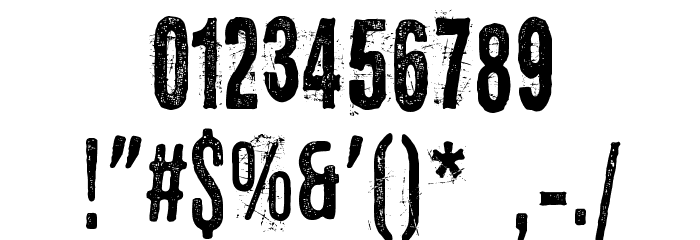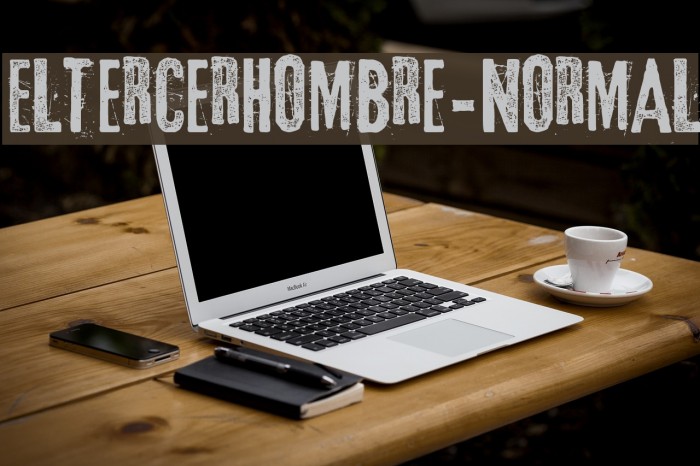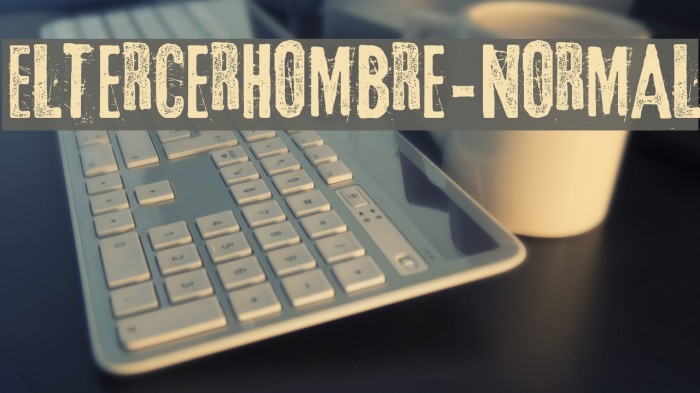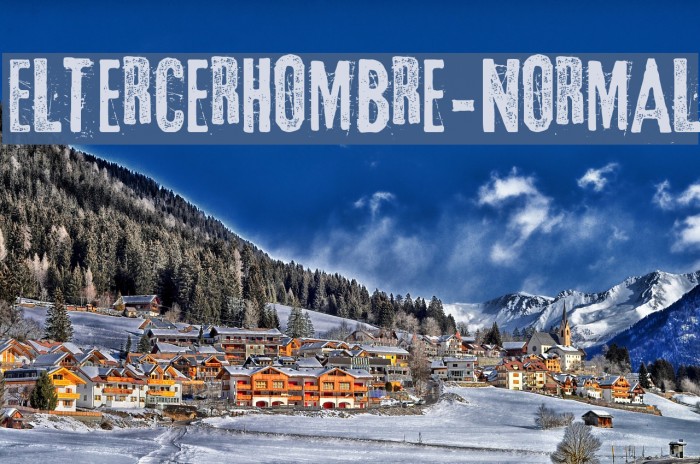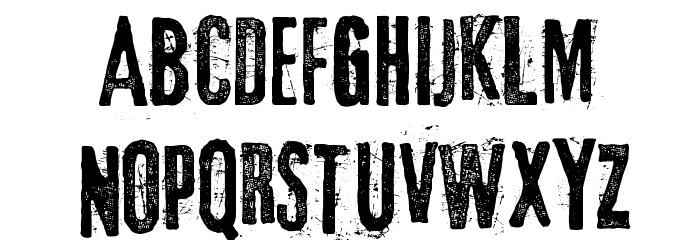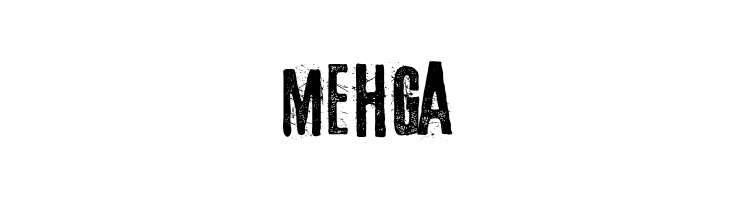
Eltercerhombre-Normal Font
This font features a bold and distressed style, giving it a rugged and vintage appearance. The characters are uppercase and have a textured, worn-out look that adds a sense of history and character. The font's design is reminiscent of old printing techniques, where ink might not have been evenly distributed, resulting in a unique, imperfect finish. The numbers and special characters follow the same distressed pattern, maintaining consistency throughout the set. This font's boldness and texture make it stand out, ideal for projects that require a strong visual impact.
A bold, distressed font with a vintage, rugged appearance from Distorted Eroded fonts.
• Proposed Projects: Ideal for posters, album covers, branding, and any design needing a vintage or grunge aesthetic.
• Overall Style: Vintage
• Use Case: Headlines, Logos, Posters